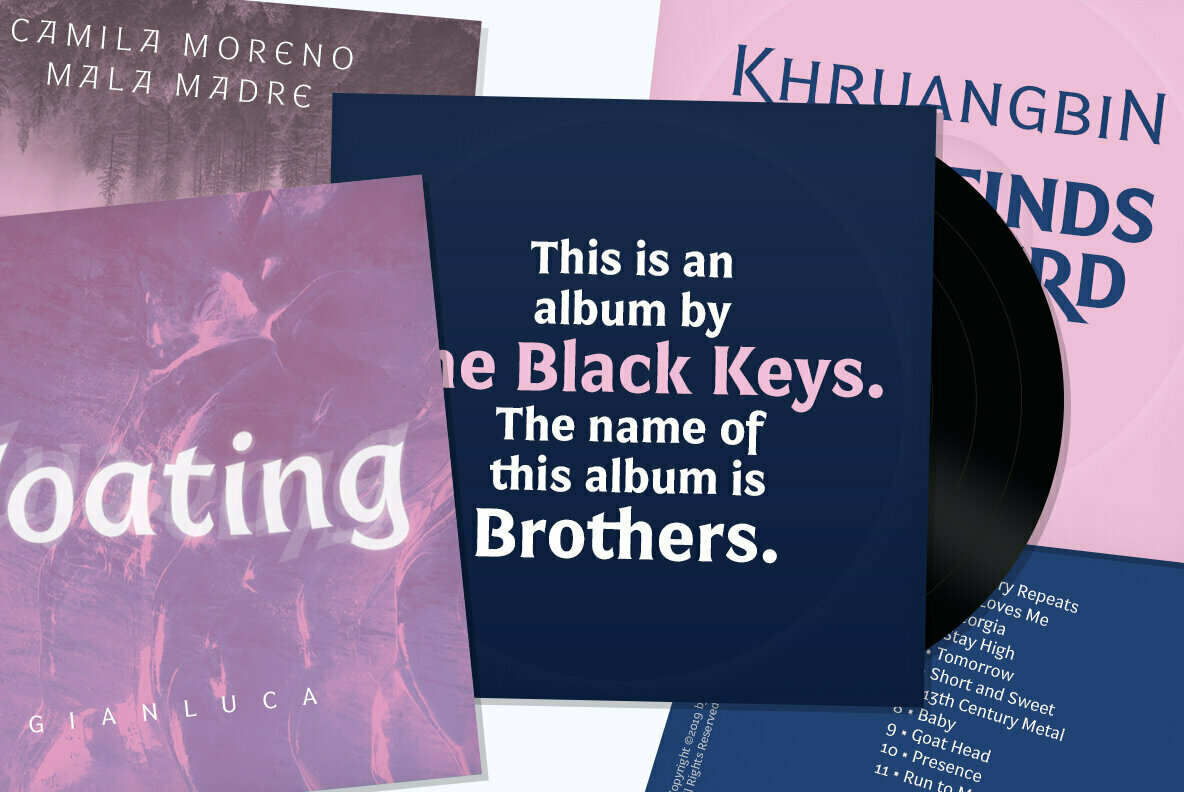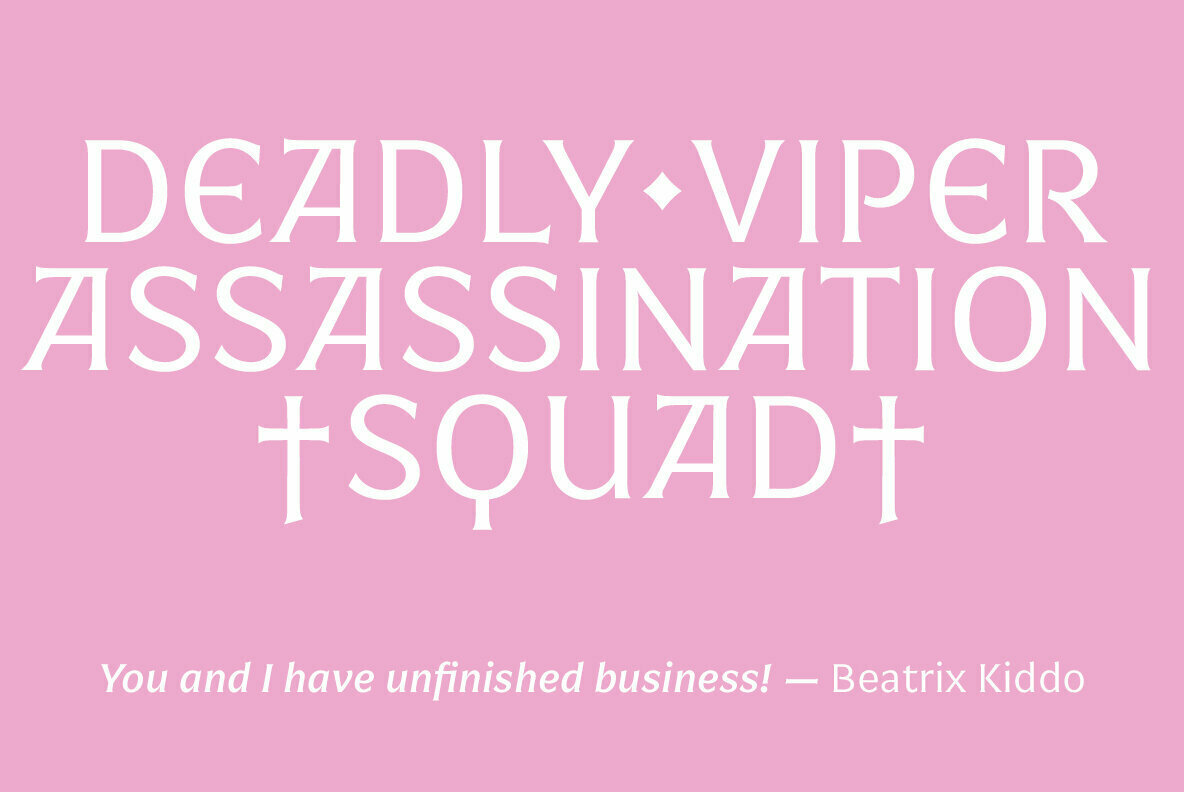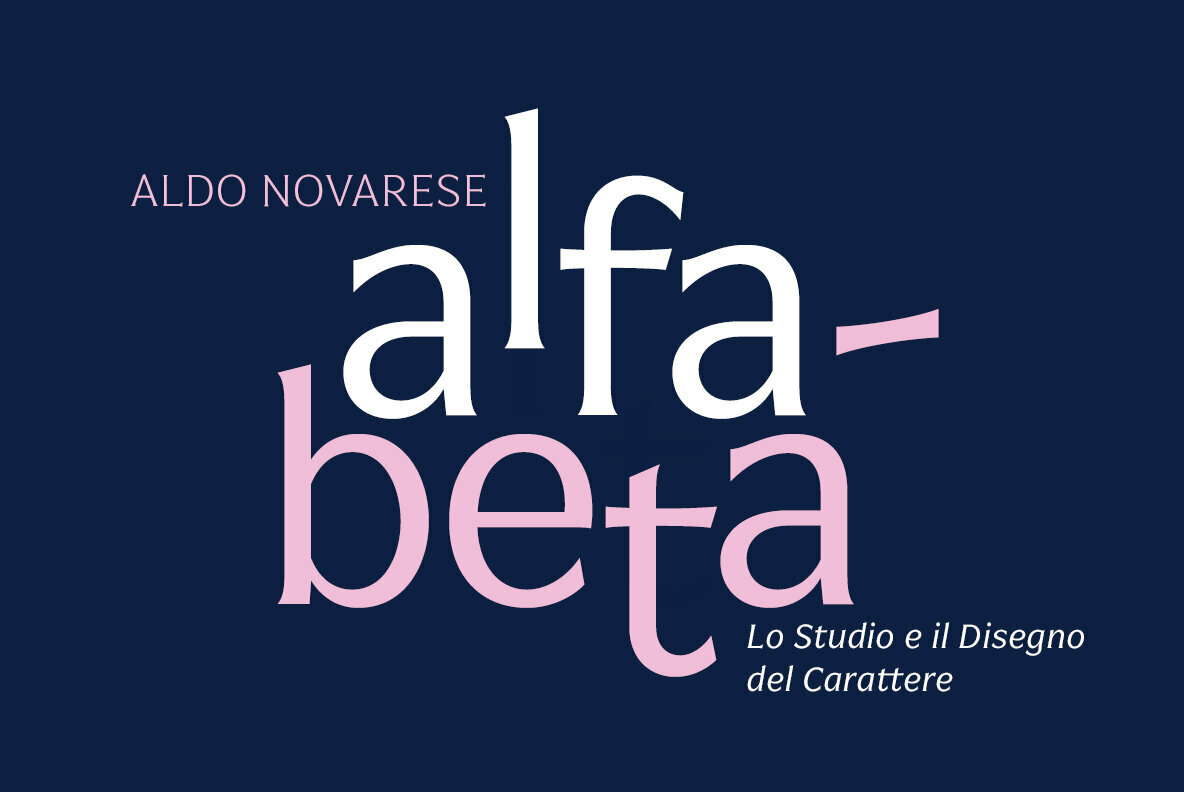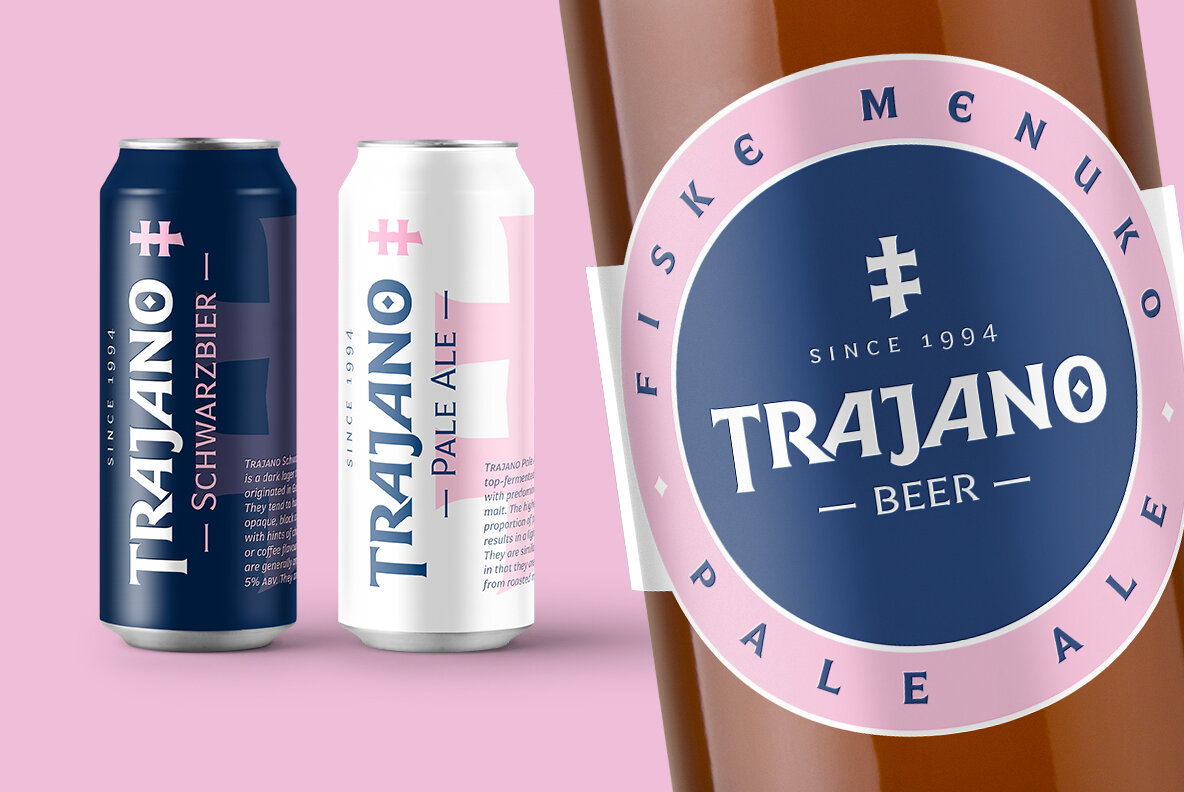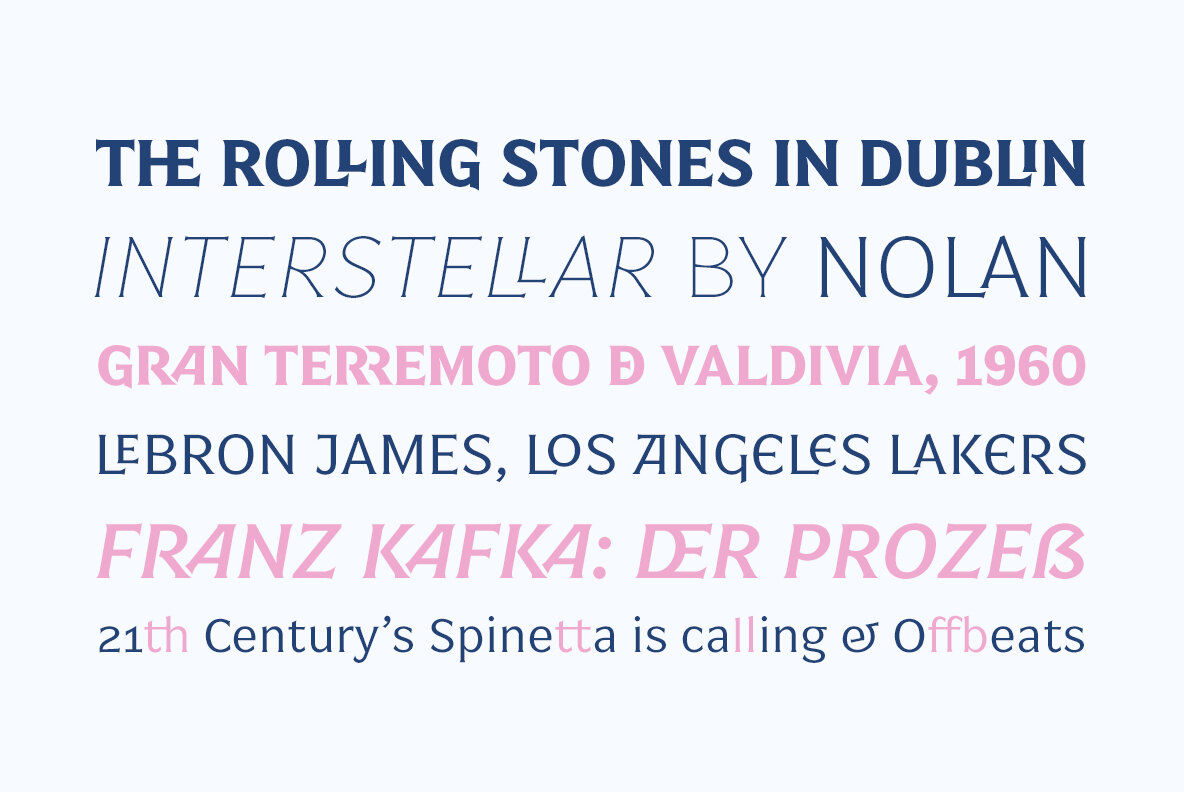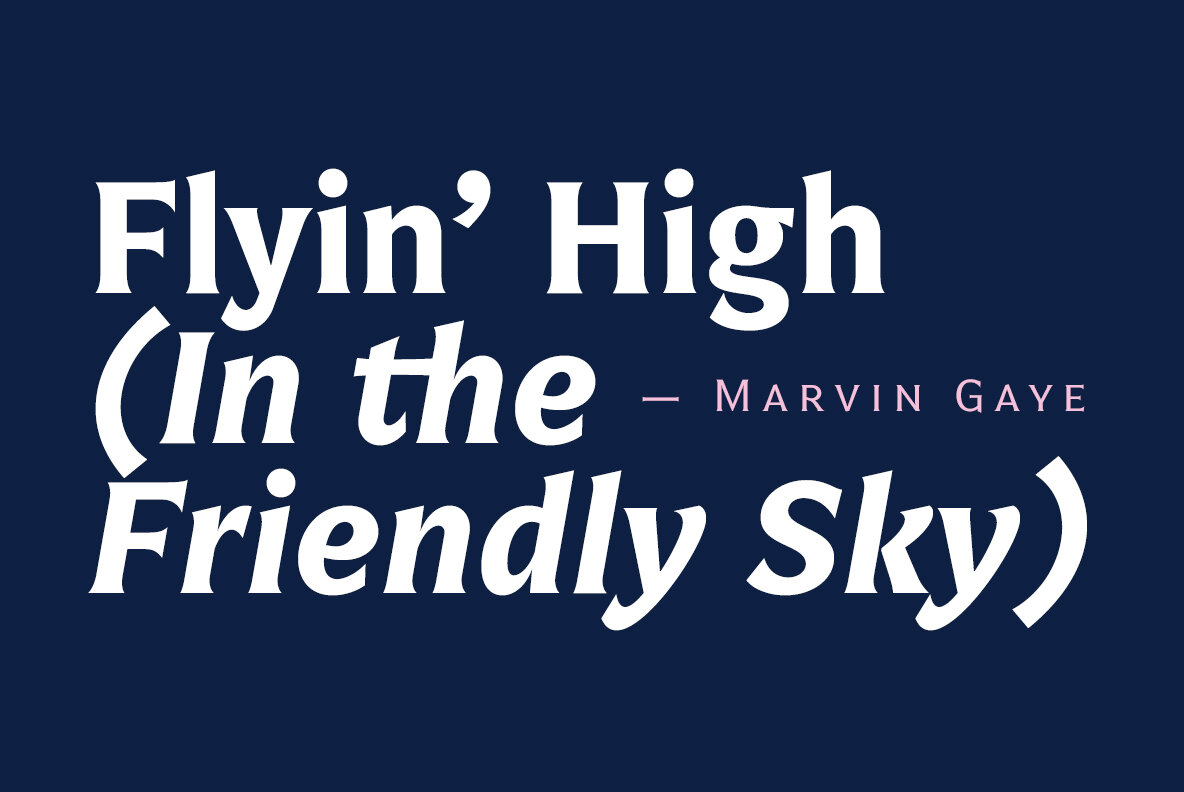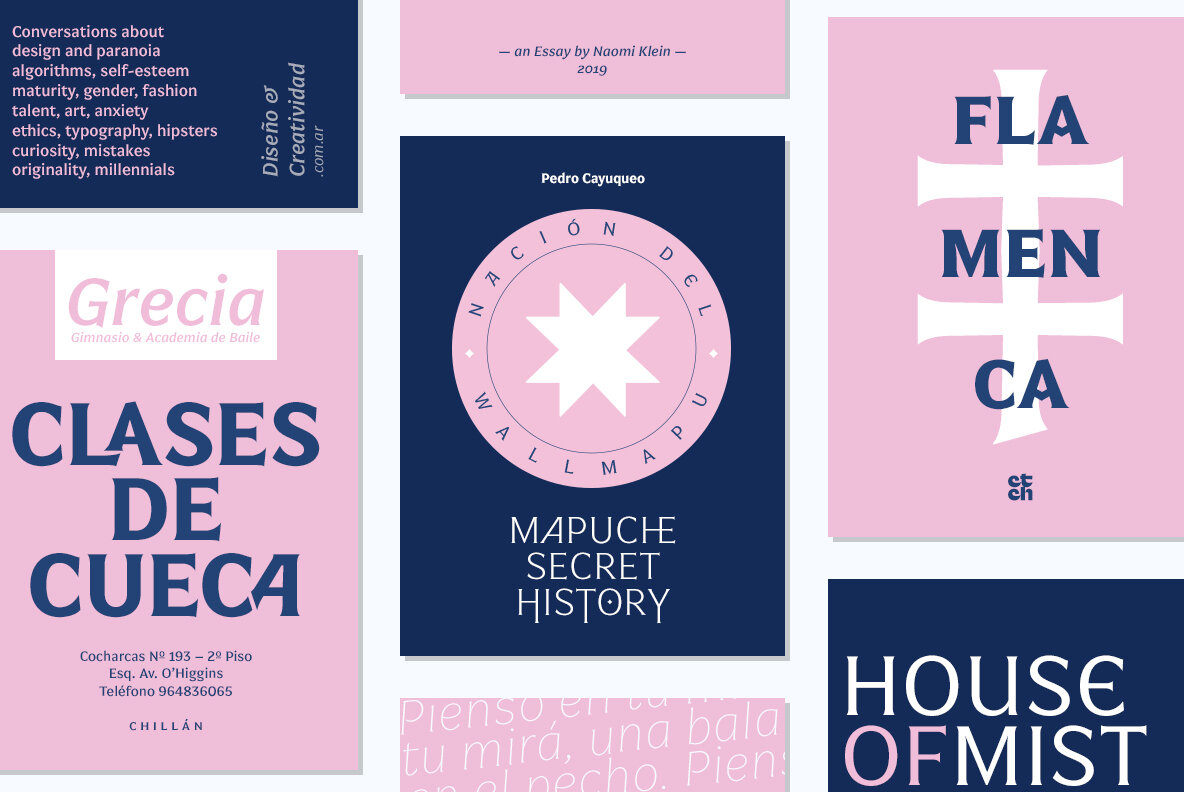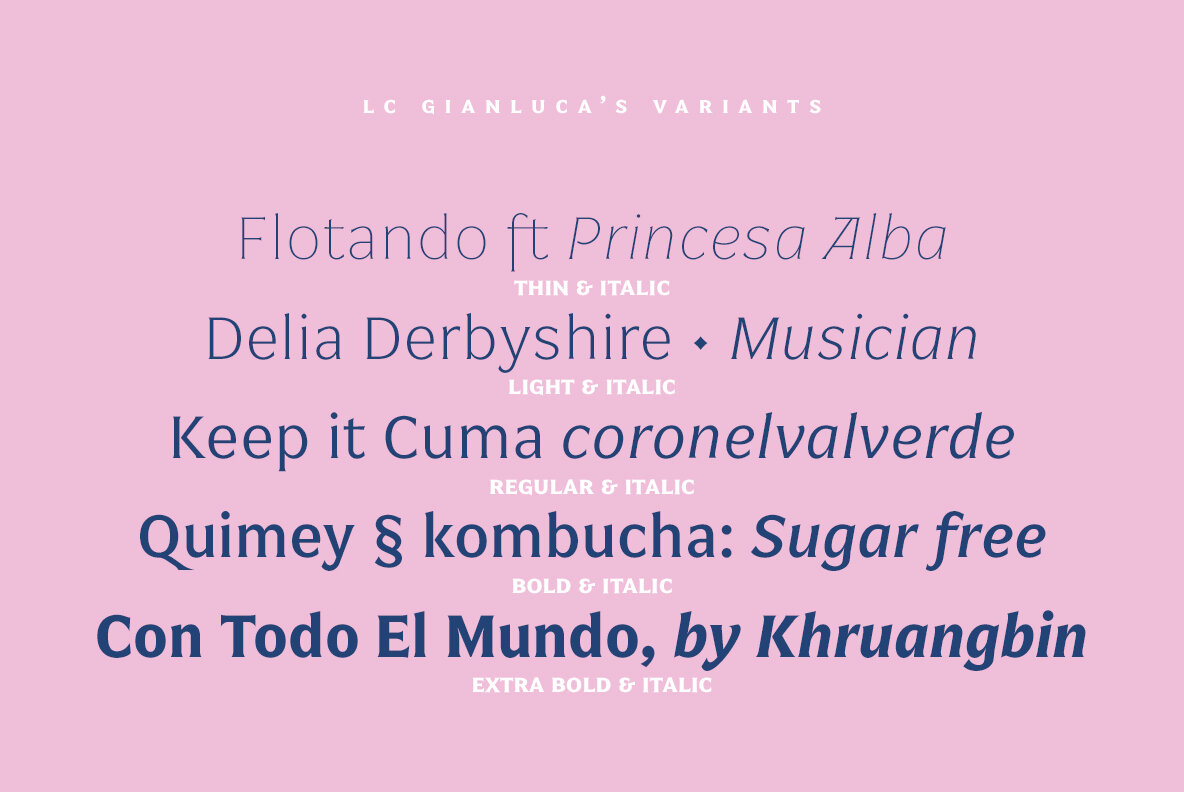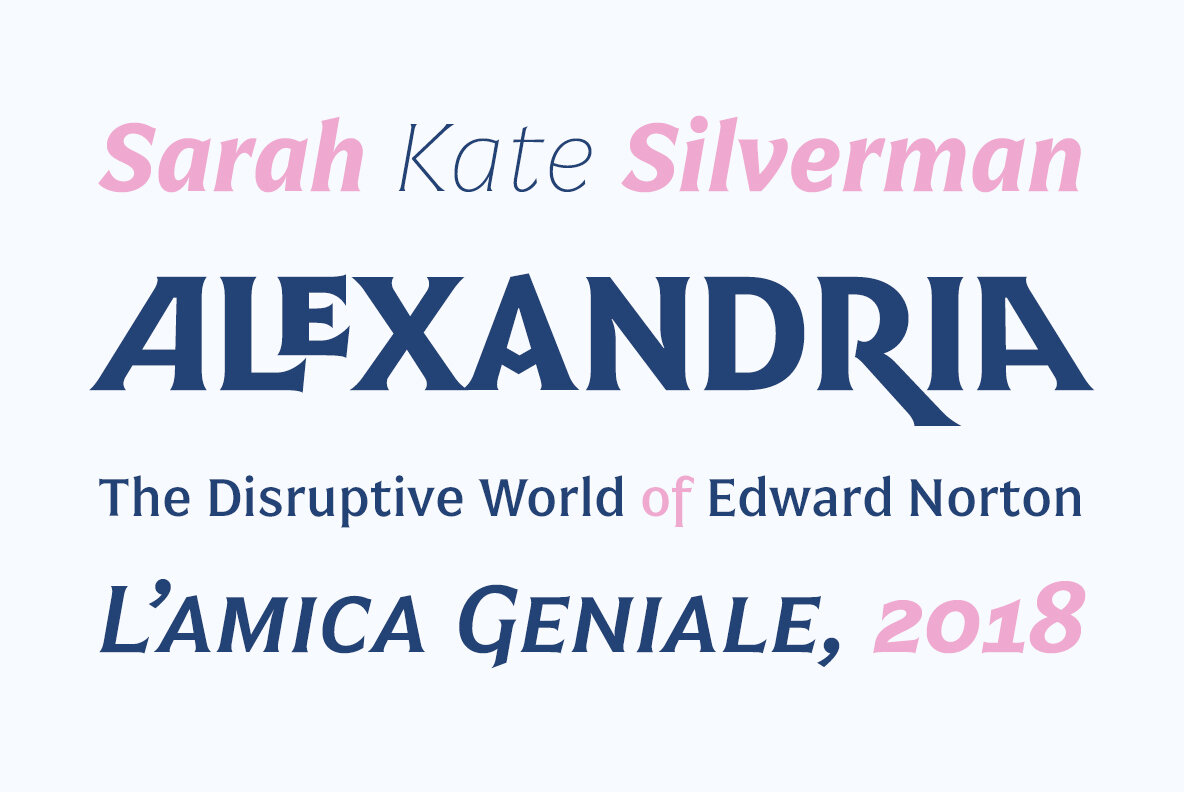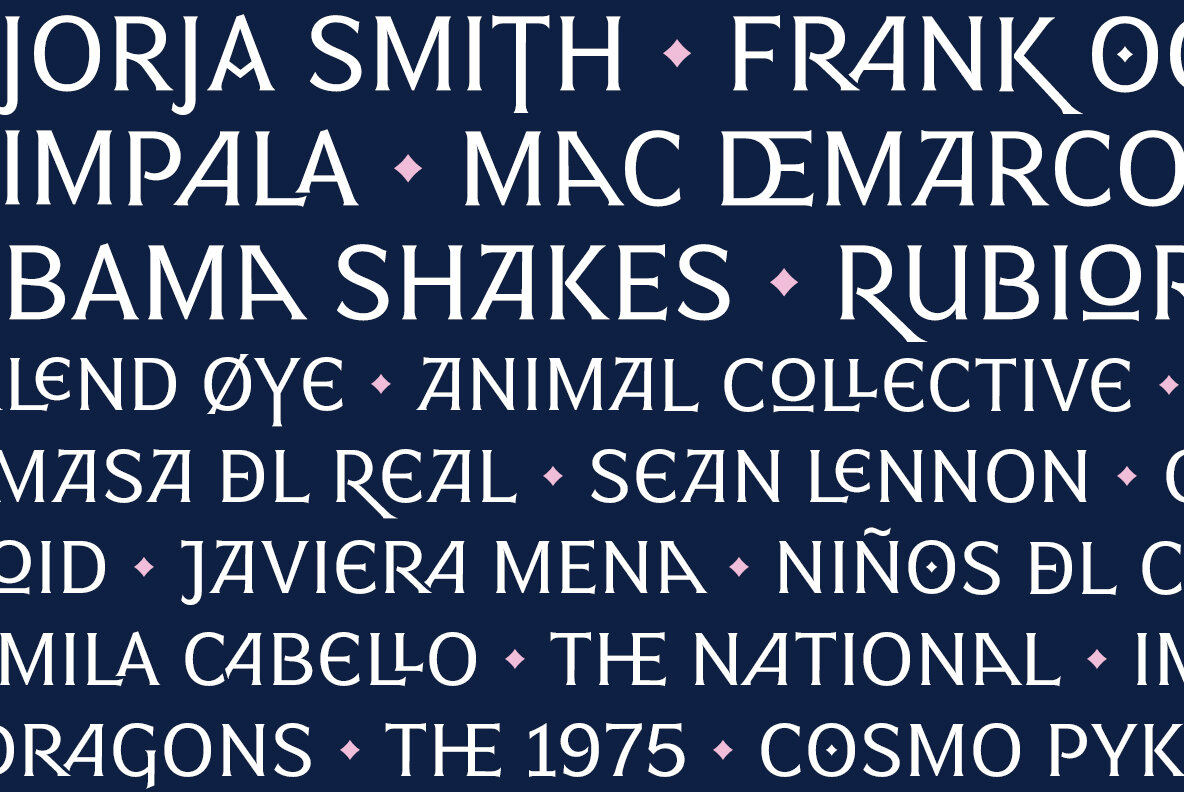
LC Gianluca Font
Gianluca is a typeface of serif glyph or "flare", inspired by Aldo Novarese’s fonts from the 70s, with a fresh and modern touch. It is a type family that can be elegant in its normal version, or very playful; composing from extensive texts to flashy headlines in books, magazines, labels, posters, branding and more.
It has many discretionary ligatures in capital letters (with its diacritics) to play with the text; 5 stylistic sets: including medieval style sets or references to Herb Lubalin, and some special letters among them.
Gianluca consists of 5-weight fonts, from Thin to Extra Bold. All of them with matching italics. It has a nice set of small capitals, modern and old style numbers, and capital-sensitive punctuation, among other striking glyphs. Play with Gianluca!
Designed by Raúl Israel